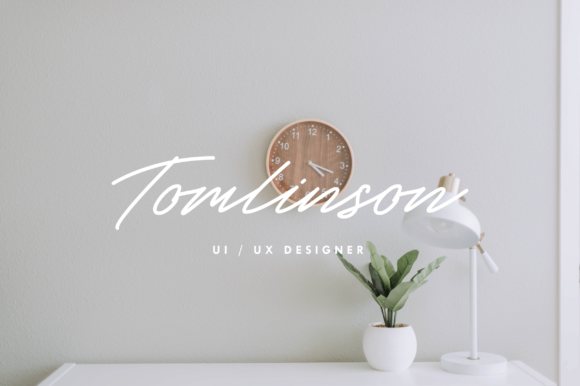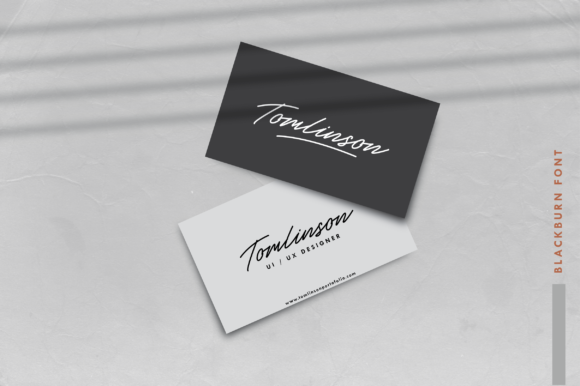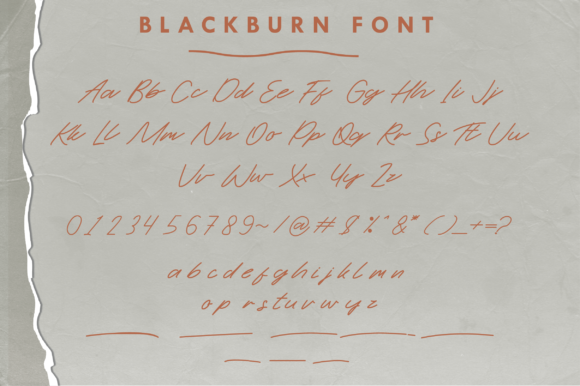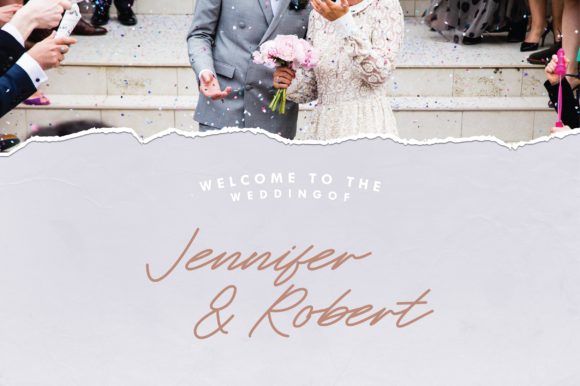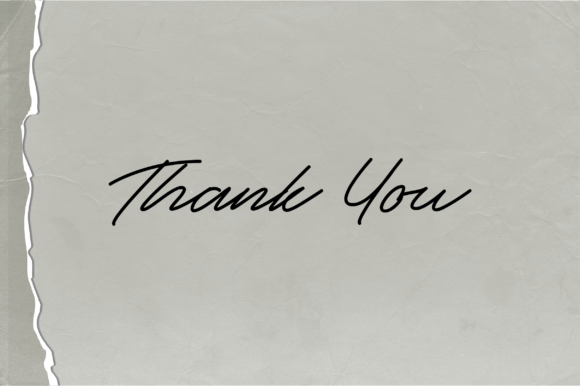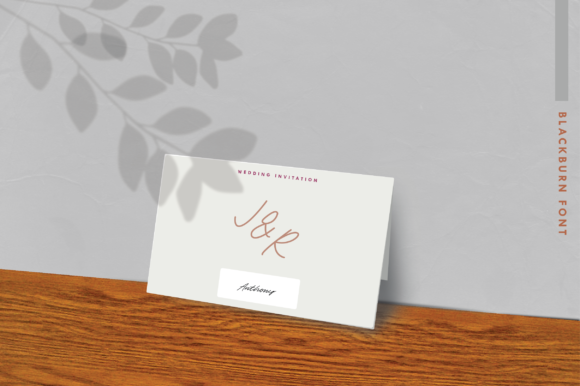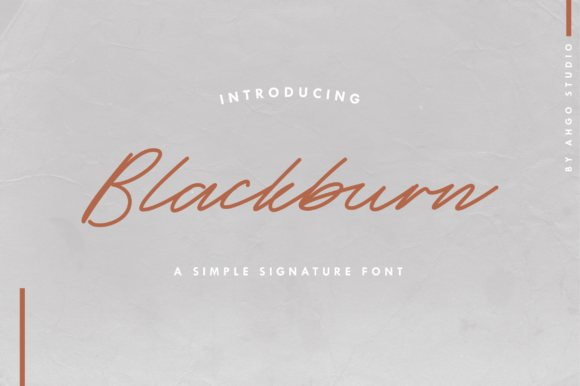
The Elegant Charm of Blackburn Font: A Designer’s Delight
I’ll never forget the time I was working on a wedding invitation project, and my client asked for a font that exuded elegance and sophistication. I scoured the internet, tried out countless fonts, but nothing seemed quite right. That was until I stumbled upon Blackburn Font. Its charming, handwritten script instantly captured the essence of what I was looking for. In this article, I’ll share with you why Blackburn Font has become a favorite among designers, crafters, and creative hobbyists like myself.
A Personal Review: What I Love About Blackburn Font
Here’s what makes Blackburn Font stand out:
• ✨ Elegant and charming: Blackburn Font has a unique, handwritten quality that adds a touch of sophistication to any design project.
• ✅ Highly legible: Despite its script nature, Blackburn Font is surprisingly easy to read, making it perfect for body text and headings.
• 🌈 Versatile: This font is suitable for a wide range of design projects, from wedding invitations and branding to packaging and digital media.
While Blackburn Font is an excellent choice, there are a few things to keep in mind:
• 🤔 Limited use in very formal or corporate designs: Blackburn Font’s script nature may not be suitable for very formal or corporate designs that require a more traditional font.
• ⚠️ May not work well in small sizes: Like many script fonts, Blackburn Font may lose its charm when used in very small sizes.
3. Experiment with Canva’s OpenType features, such as ligatures and stylistic alternates, to add more flair to your design.
The Story Behind Blackburn Font
Blackburn Font was designed with the intention of creating a elegant, charming script font that would add a touch of sophistication to any design project. While the designer’s true identity remains a mystery, it’s clear that Blackburn Font was crafted with love and attention to detail.
What is Blackburn Font best used for? Blackburn Font is best used for design projects that require an elegant, charming script font, such as wedding invitations, branding, and packaging.
Is Blackburn Font suitable for body text? While Blackburn Font is legible, it’s best used for headings and titles. For body text, a more traditional font may be more suitable.
Is Blackburn Font available in different weights? Blackburn Font may be available in different weights, but this depends on the specific font version and foundry.